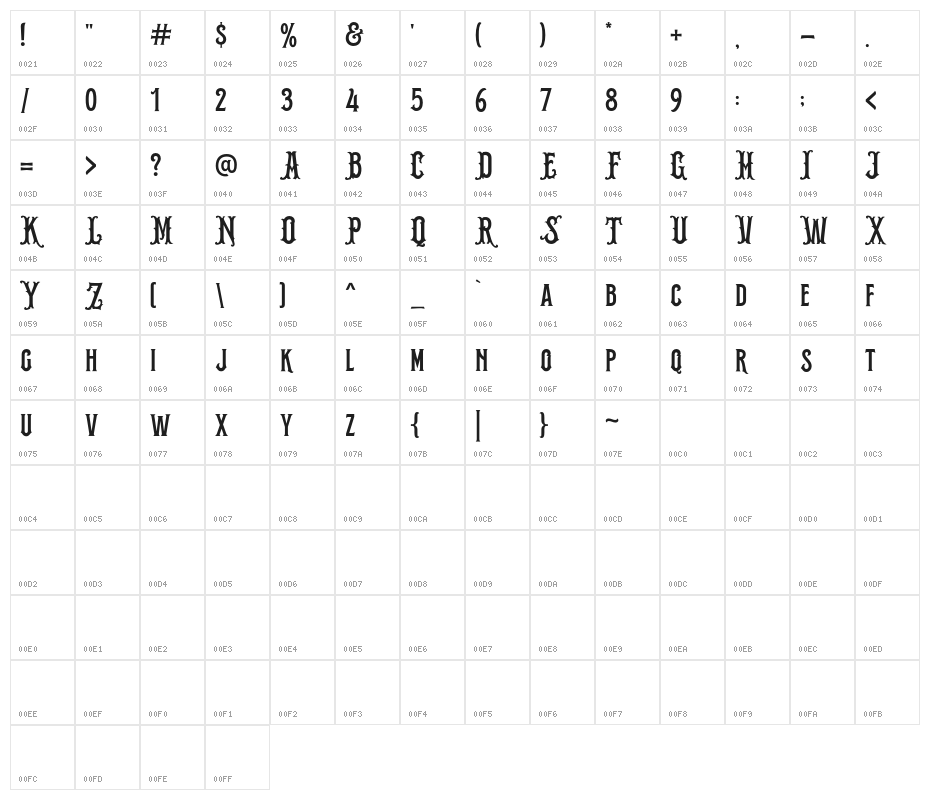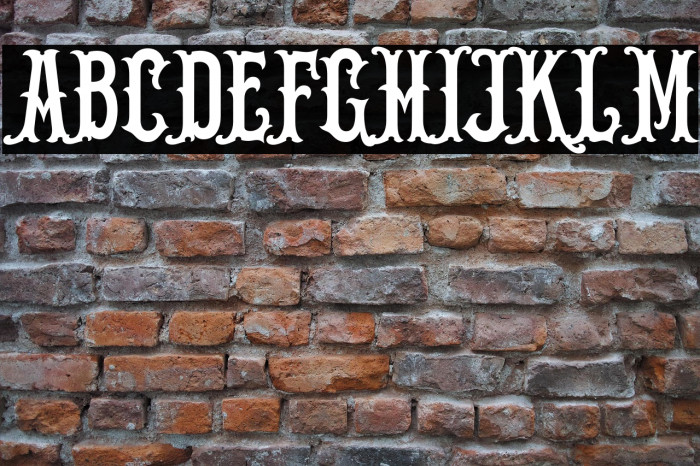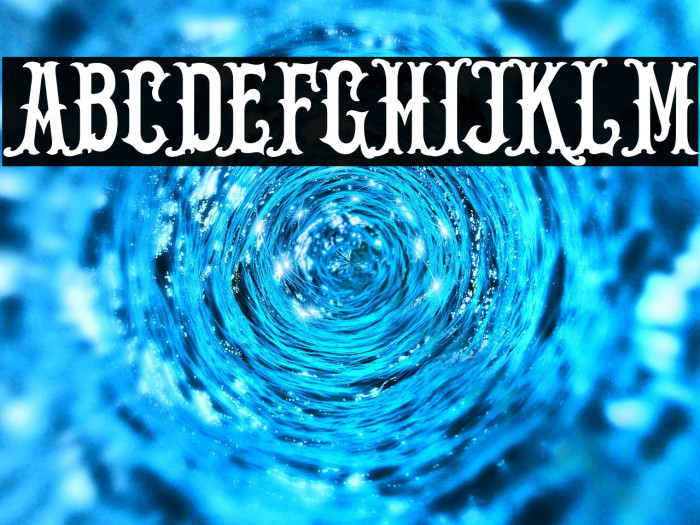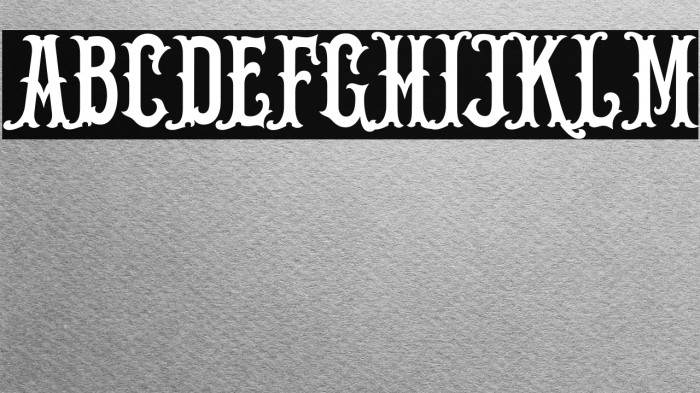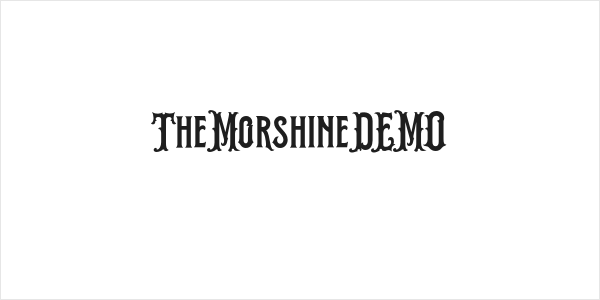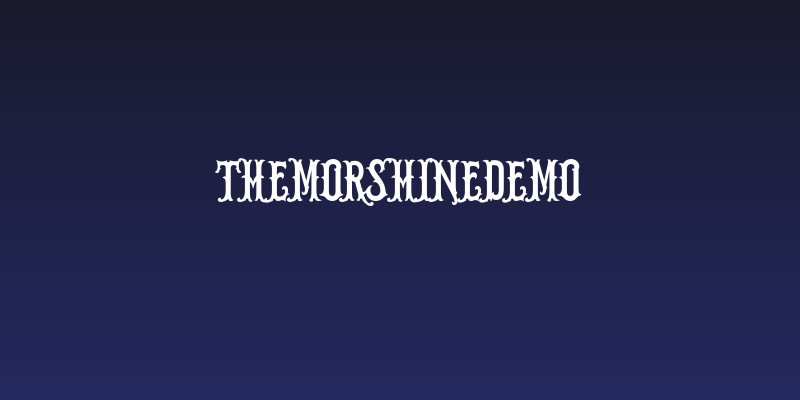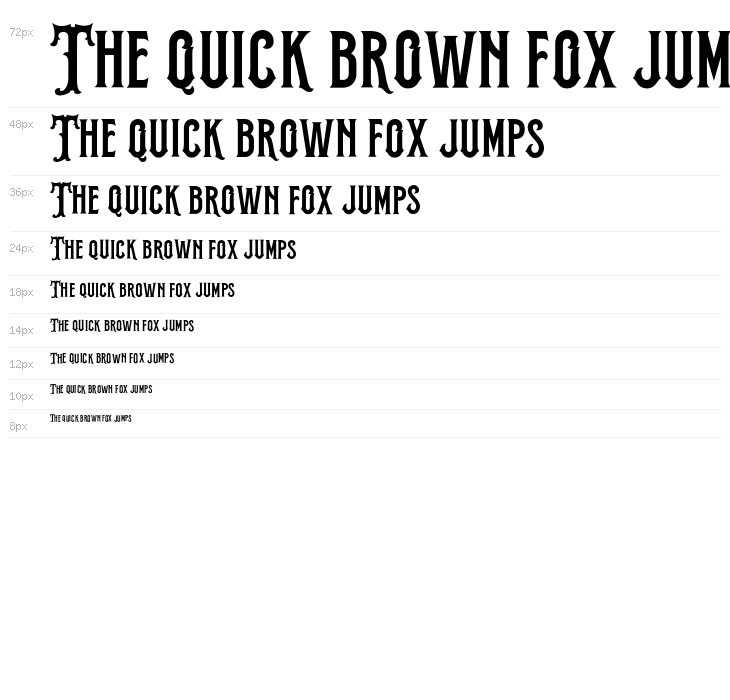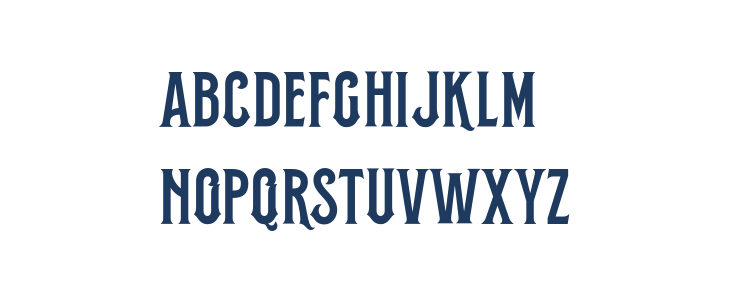
TheMorshineDEMO Font
TheMorshineDEMO Description
This font features a bold and decorative style with intricate details and flourishes that give it a vintage and ornate appearance. The uppercase letters are particularly elaborate, with extended serifs and unique embellishments that make each character stand out. The lowercase letters maintain a consistent style, though they are less ornate than their uppercase counterparts. The numerals and special characters are designed to match the overall aesthetic, providing a cohesive look across all glyphs. This font is ideal for projects that require a touch of elegance and historical charm.